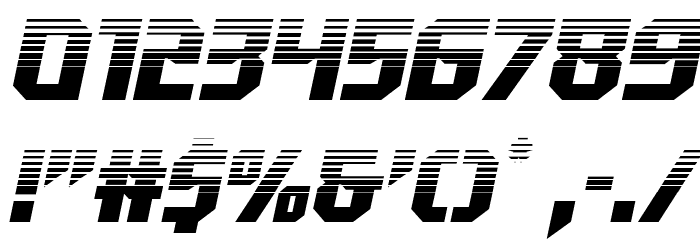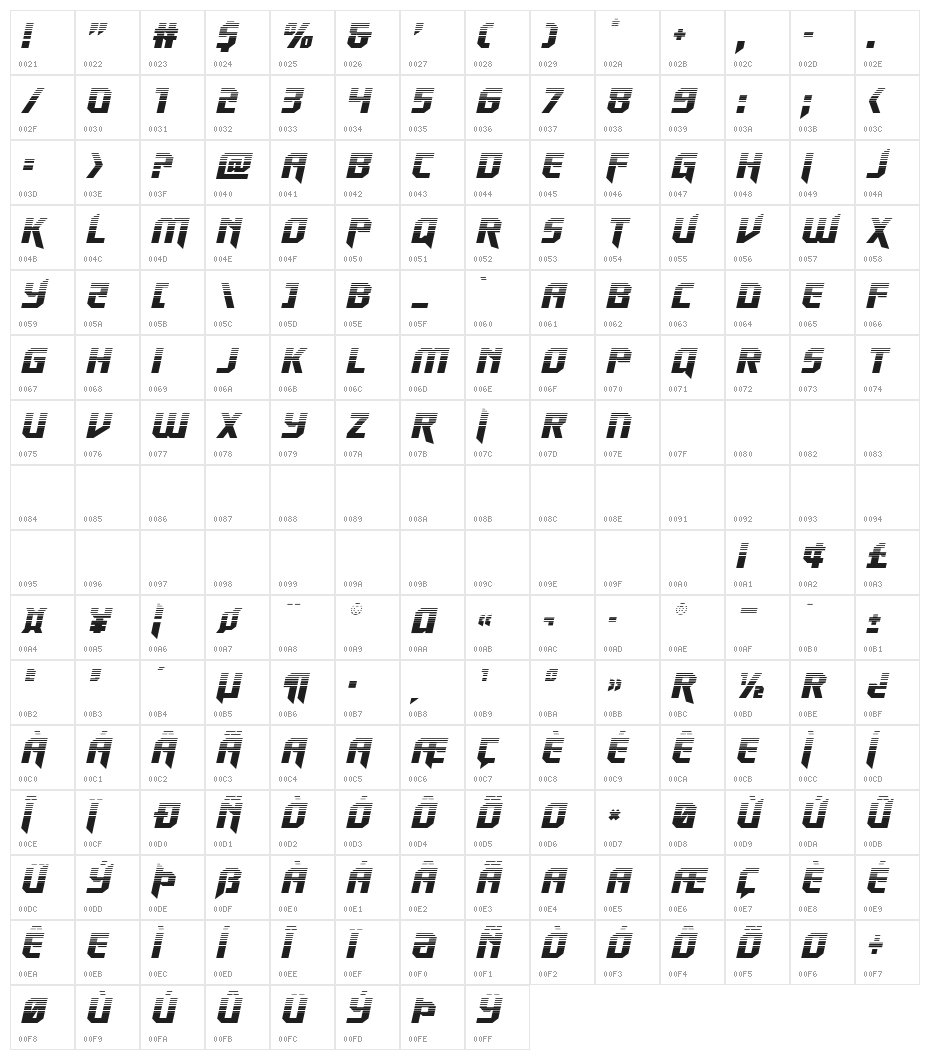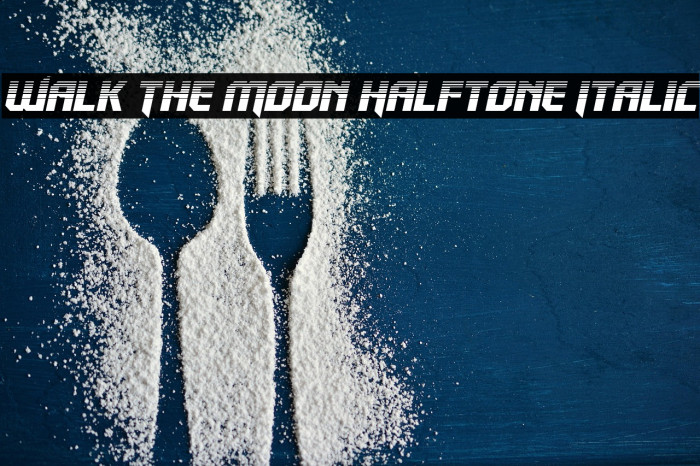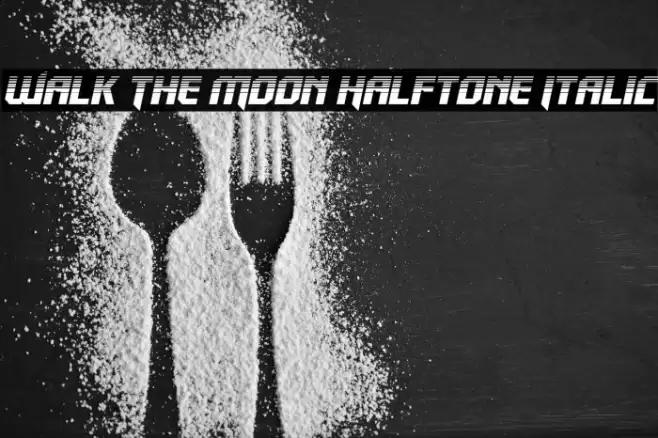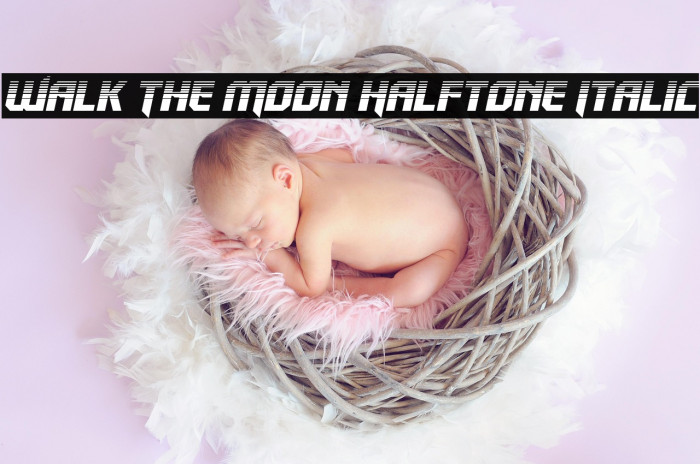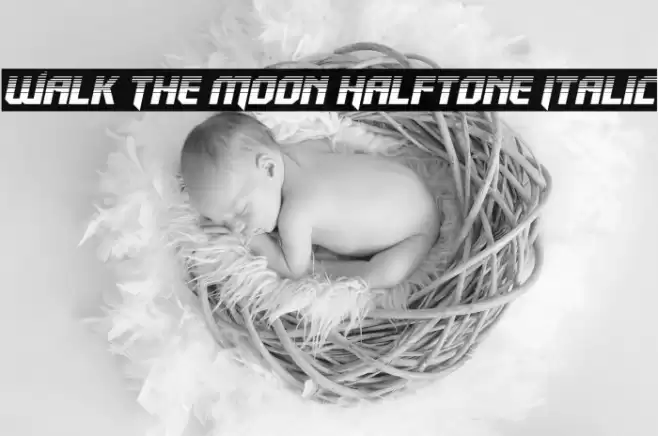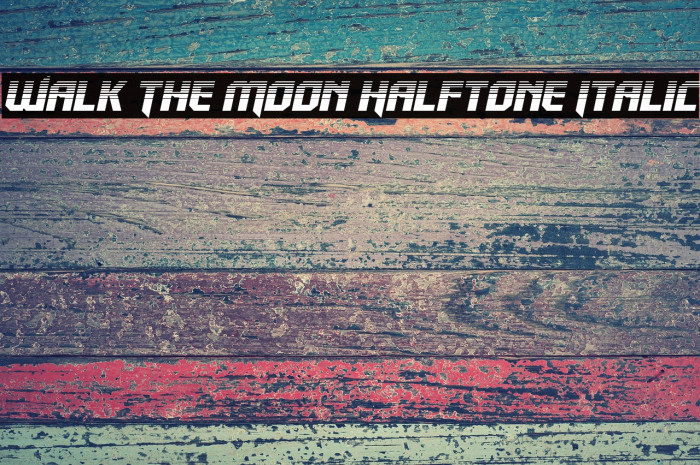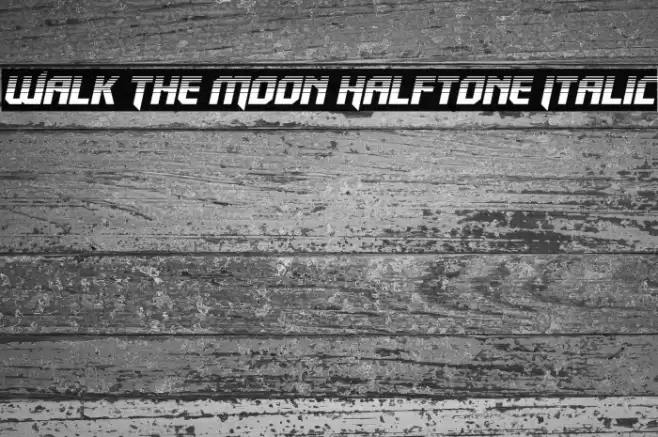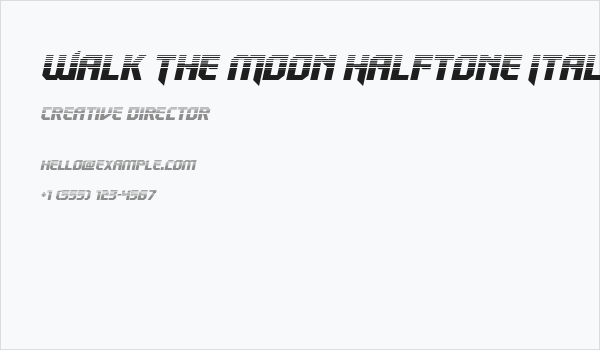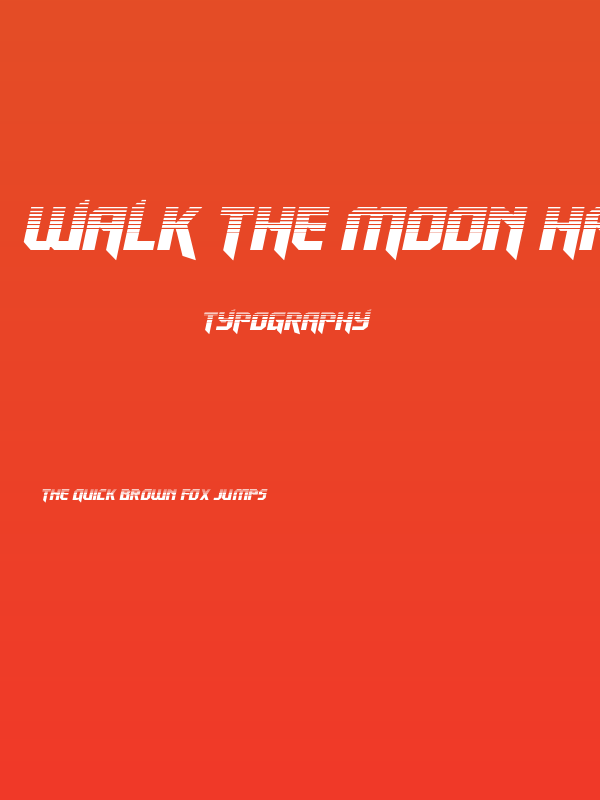
Walk The Moon Halftone Italic Font
Walk The Moon Halftone Italic Description
This font features a bold, futuristic design with a distinct halftone effect that creates a sense of movement and energy. The characters are italicized, adding a dynamic slant that enhances the modern aesthetic. Each letter is composed of horizontal lines that gradually increase in thickness, giving a unique layered appearance. The sharp angles and geometric shapes contribute to its edgy and contemporary style. This font is highly stylized, making it ideal for eye-catching designs that require a strong visual impact.